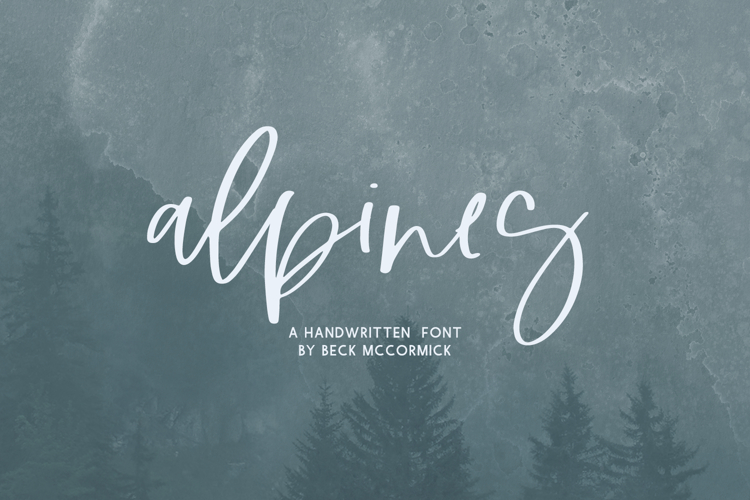
Introducing Alpines, a messy handwritten script. Alpines has an organic, signature-style aesthetic making it perfect for projects requiring a handwritten touch.
Alpines is best for:
- modern farmhouse decor and crafts
- website design + website accents, blog design
- feminine graphic tee shirt design & other apparel
- Christmas projects like cards & gift tags